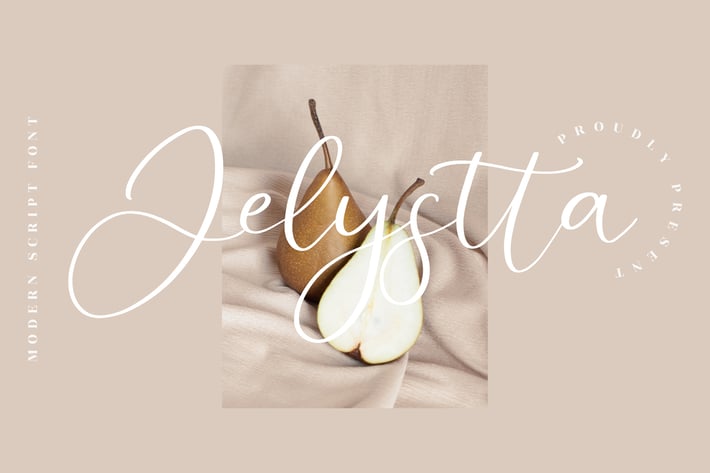
Jelystta Modern Script Font
Jelystta Modern Script Font is a graceful and timeless script typeface designed to bring an elegant handwritten touch to your creative projects. Its smooth curves and balanced strokes create a modern yet classic look, making it a versatile choice for both digital and print design. Whether for branding, packaging, or invitations, Jelystta adds sophistication and charm to any layout.
+ Stylish script design with elegant ligatures
+ Multilingual support for global projects
+ Smooth flow for natural handwritten aesthetics
+ Perfect for both large and small display sizes
+ Branding and logo design
+ Wedding and event invitations
+ Packaging and product labels
+ Social media graphics and marketing materials
+ Editorial and lifestyle projects
Add a touch of elegance and modern charm to your designs with Jelystta – where timeless beauty meets modern script style.